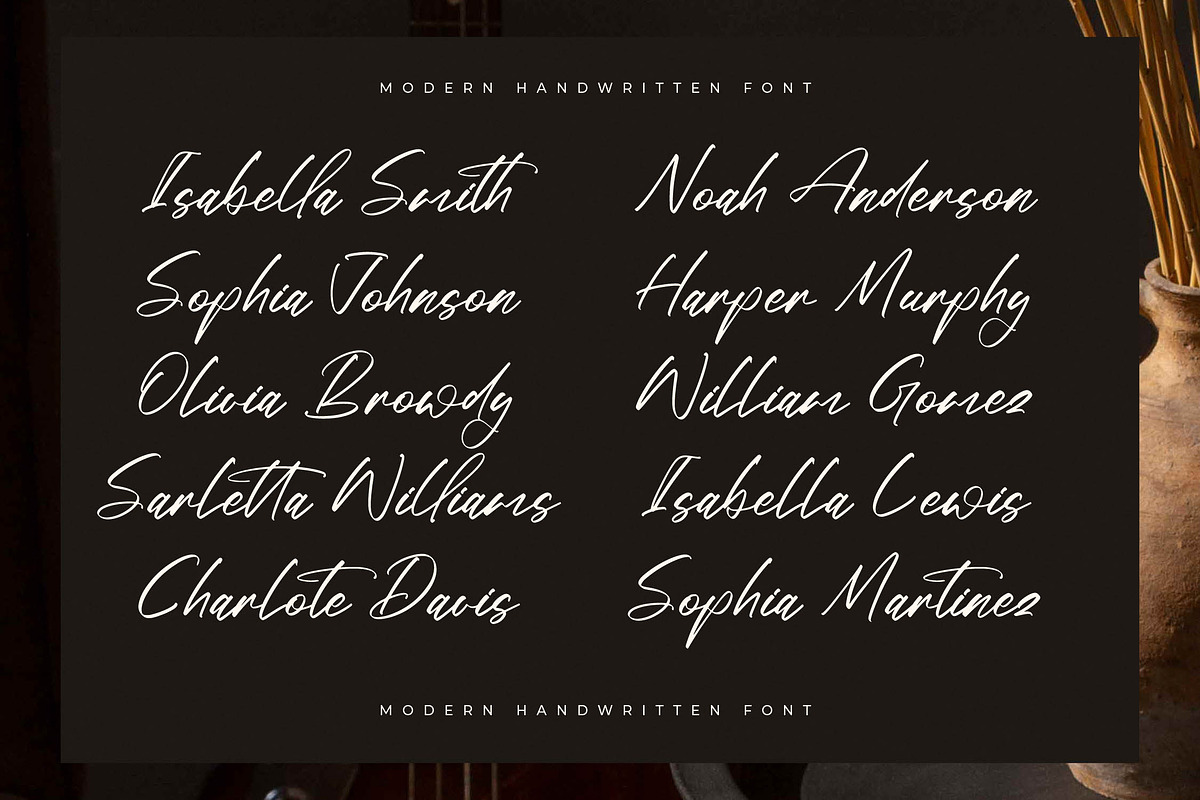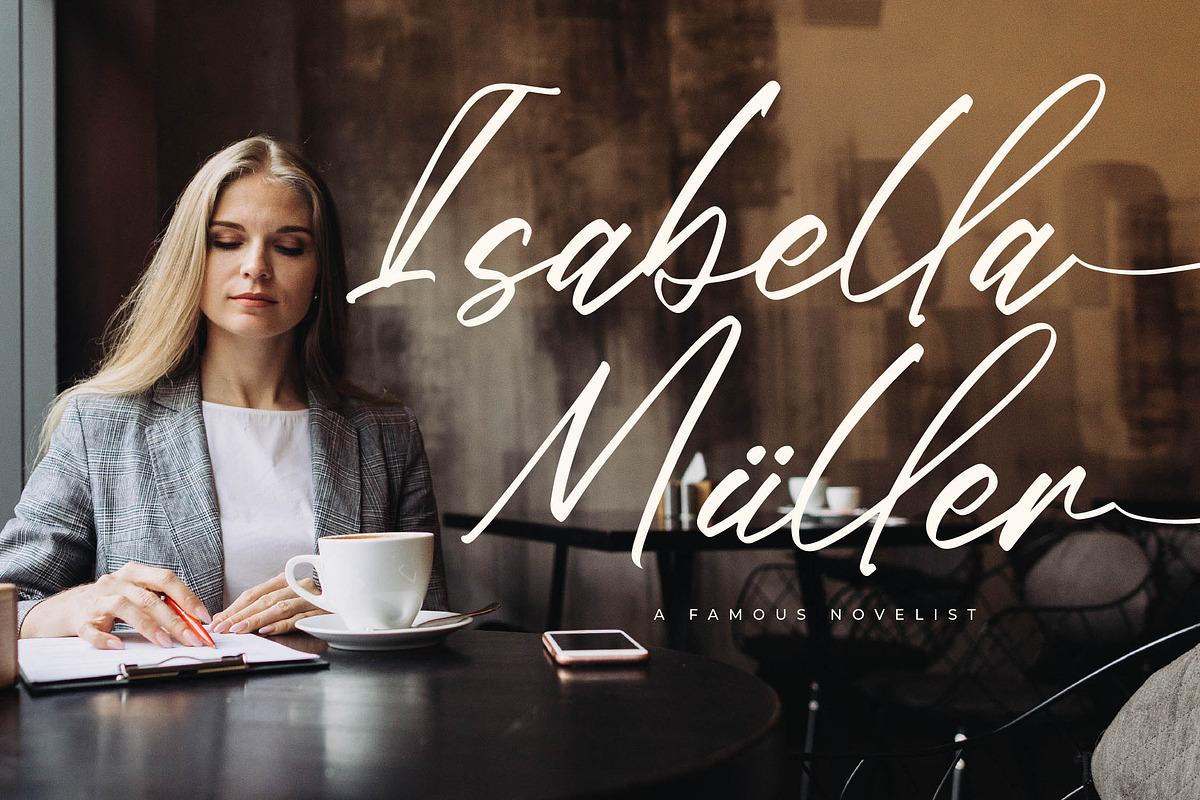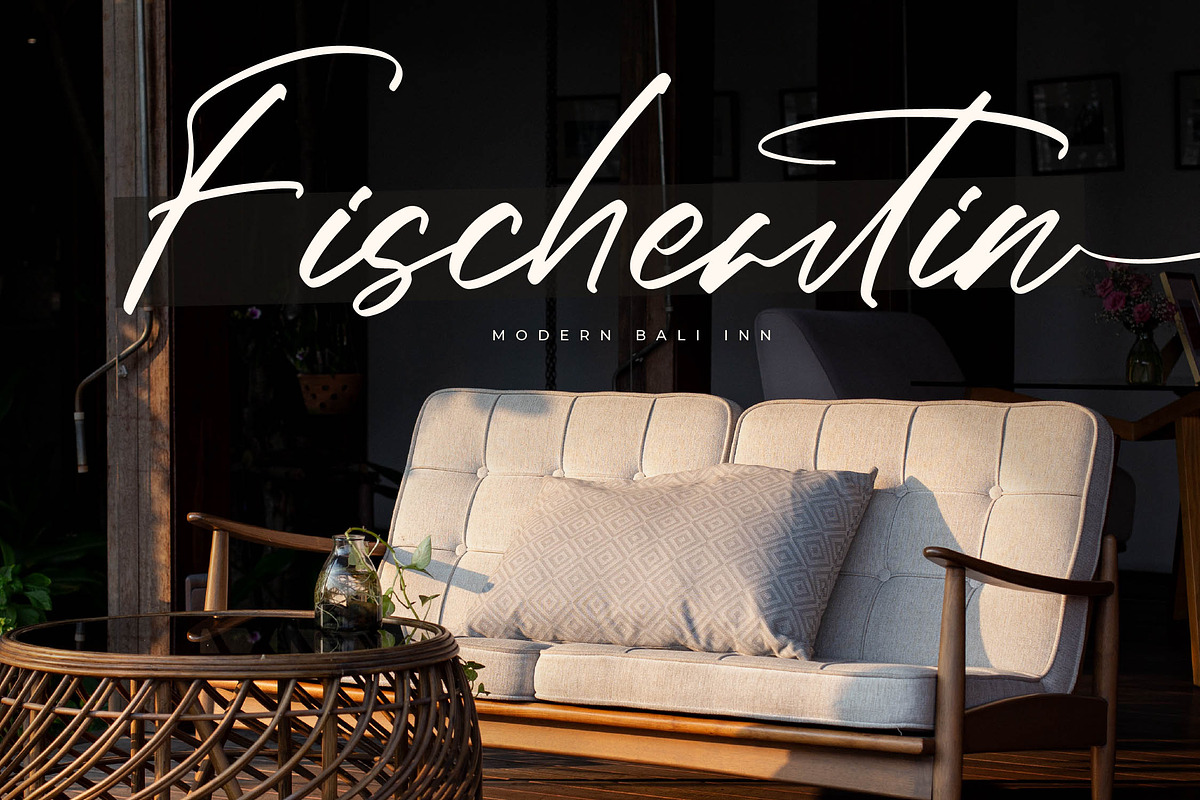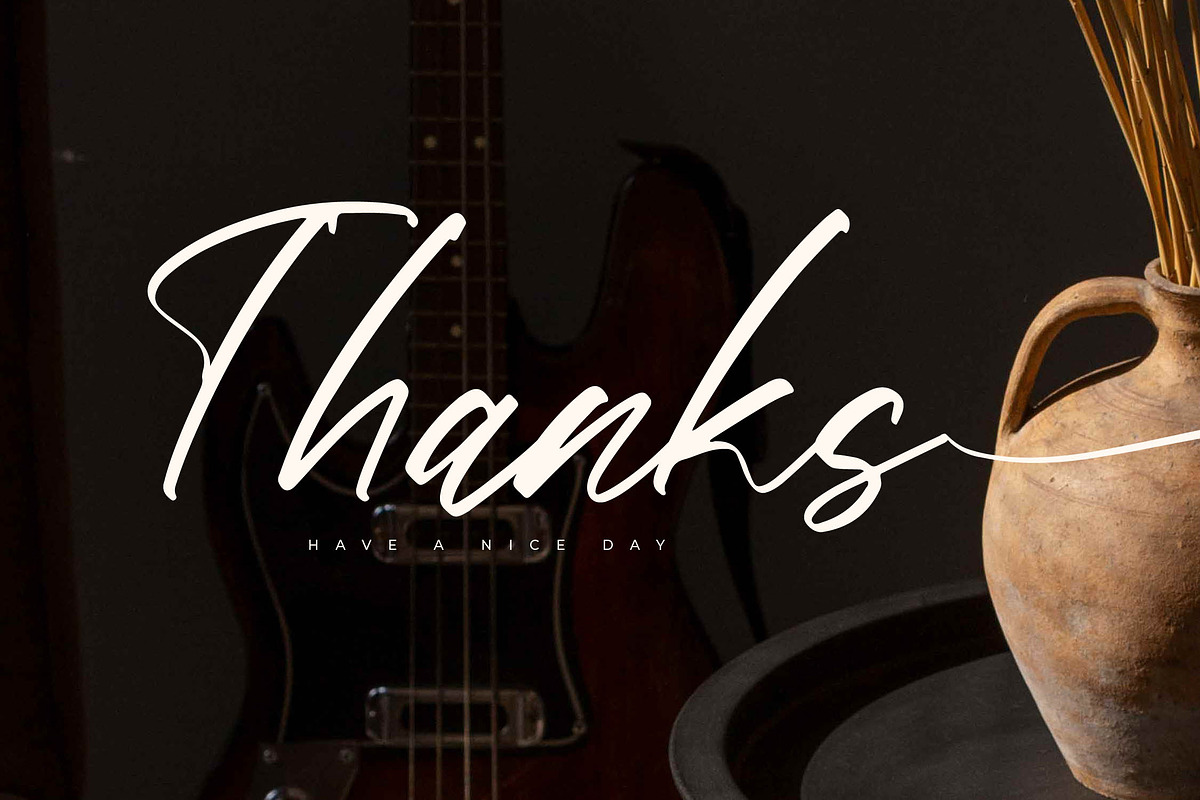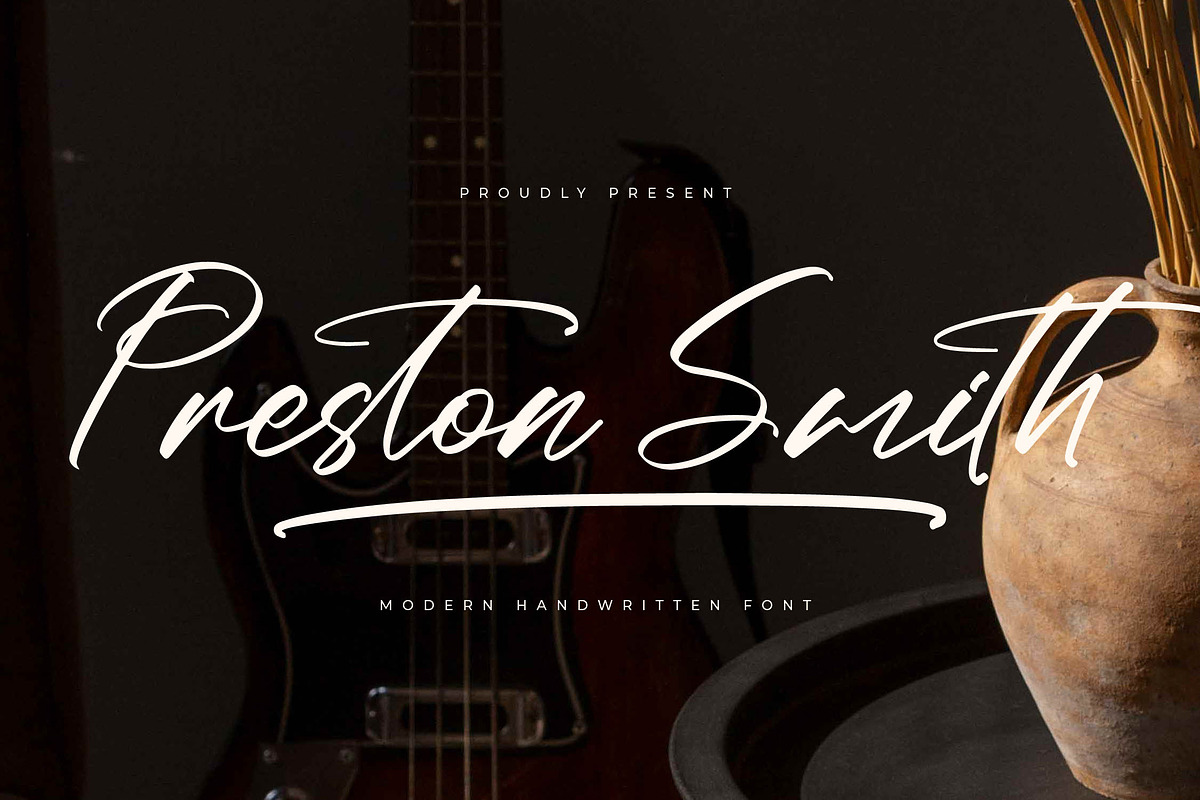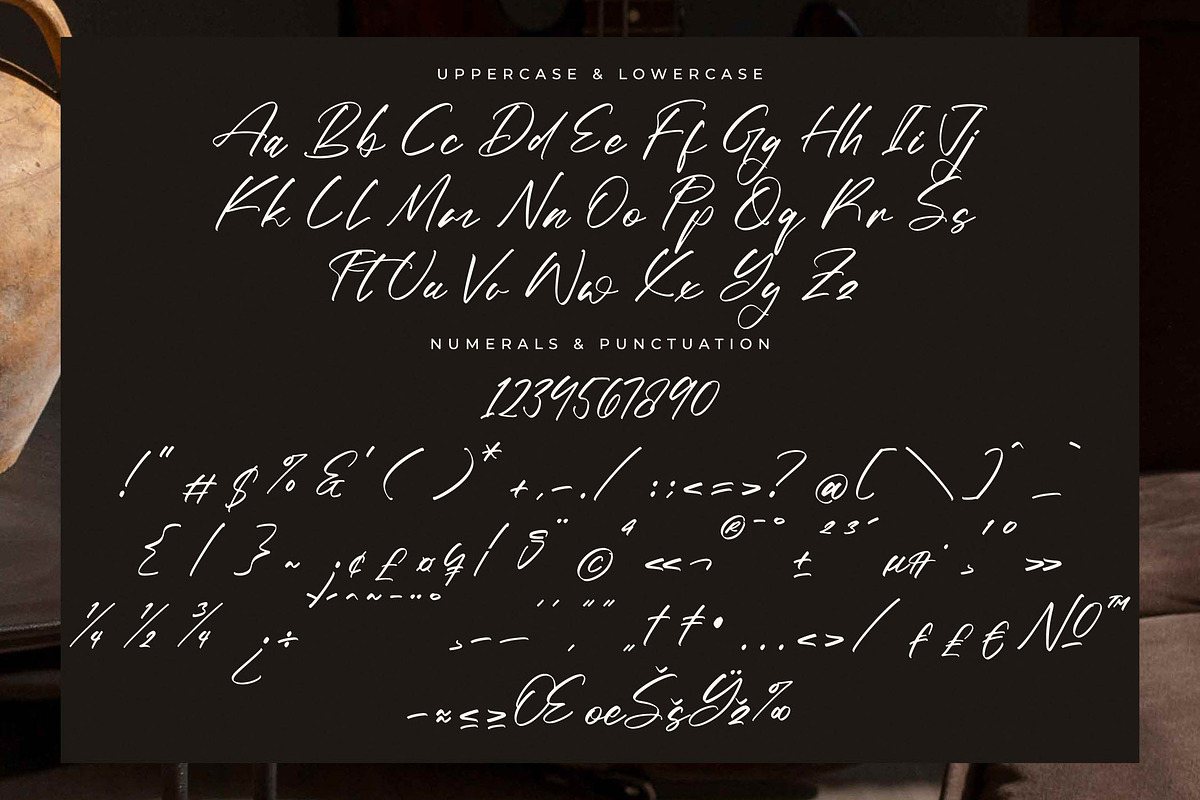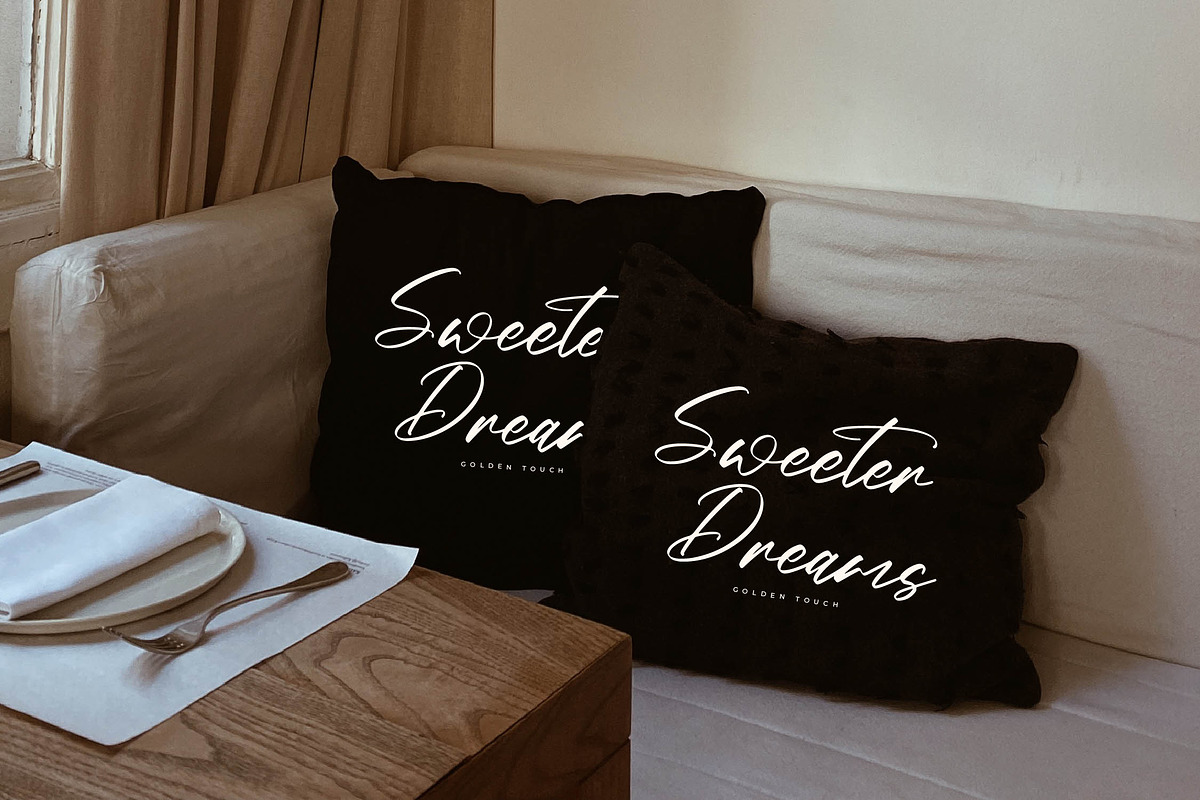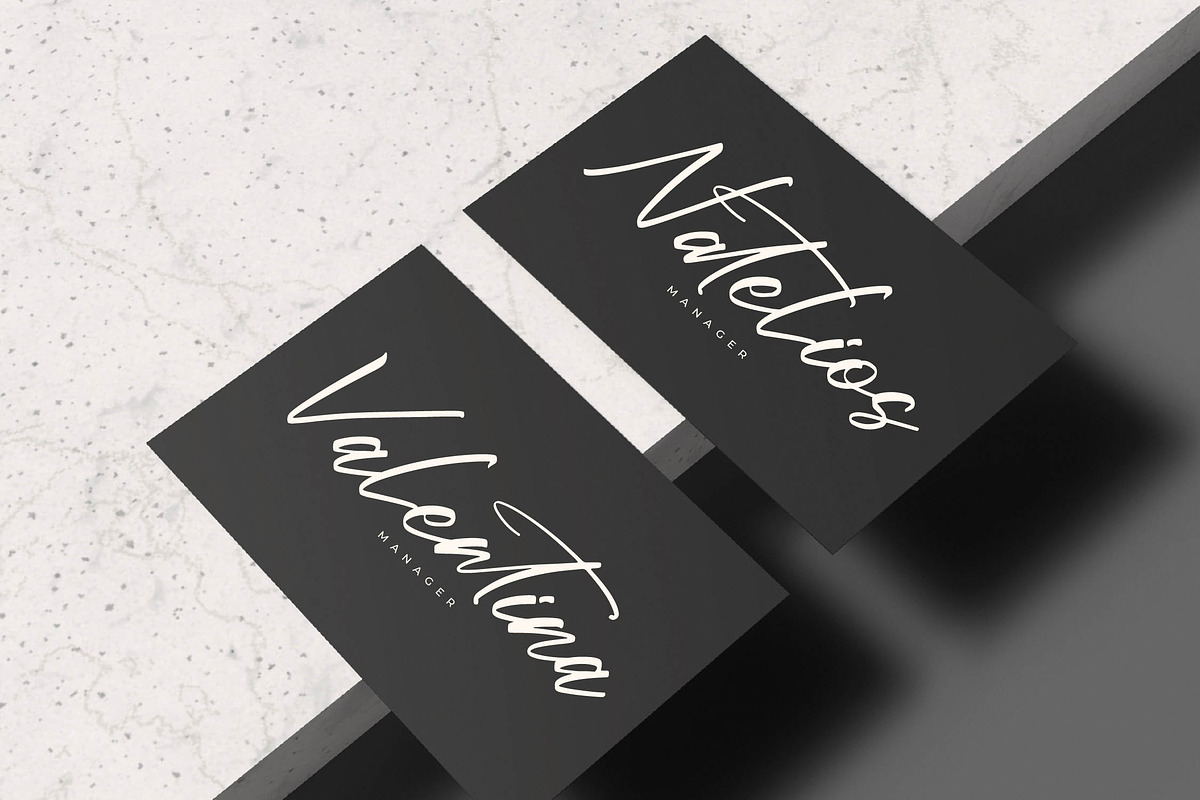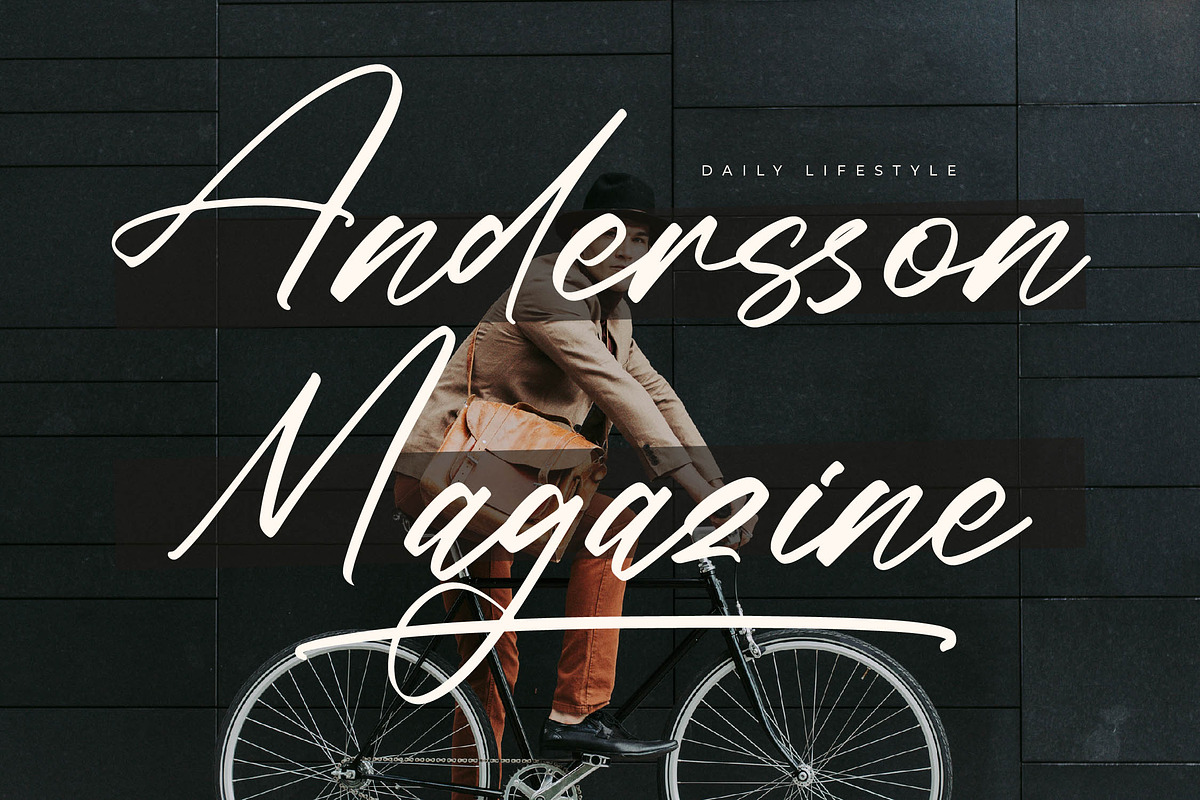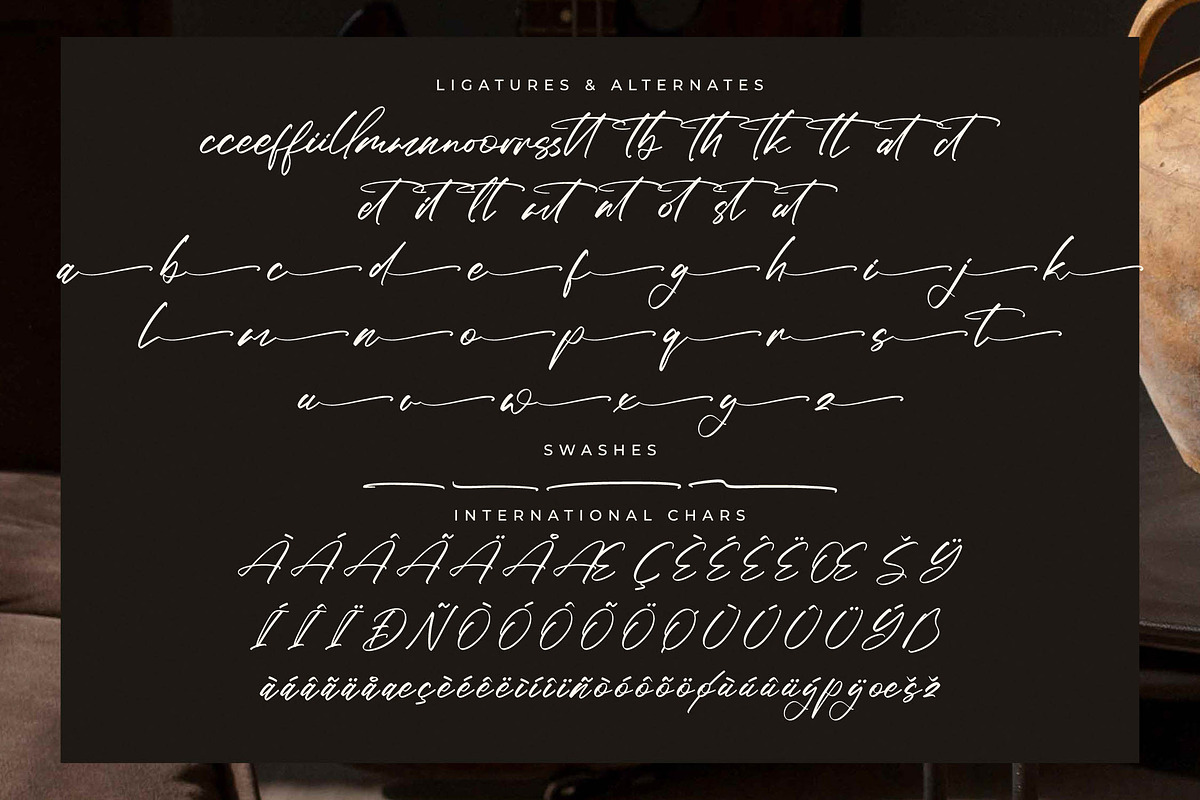
Preston Smith Modern Handwritten
Preston Smith – Modern Handwritten Font , from Letterena, is a Luxury Script font, suitable for any projects such as: logos, branding projects, homeware designs, product packaging, mugs, quotes, posters, shopping bags, t-shirts, book covers, name card, invitation cards, greeting cards, label, photography, watermark, special events, and all your other luxury and beautiful projects that need a Luxury Script taste.